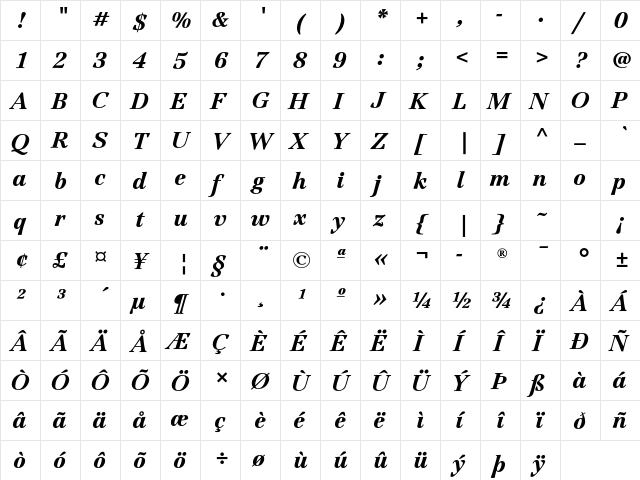
Jamille ITC Std Black Italic
| Designer | Mark Jamra |
Design Context for Jamille ITC Std Typeface
Jamille ITC Std takes a measured approach to typography — its balanced proportions and neutral character make it a reliable workhorse for both digital and print work. The dynamic lean of this cut emphasises speed and emphasis in any layout.
Pro Tip: Try Jamille ITC Std for annotation and caption copy alongside an upright companion — the contrast in angle creates a dynamic but ordered typographic system.